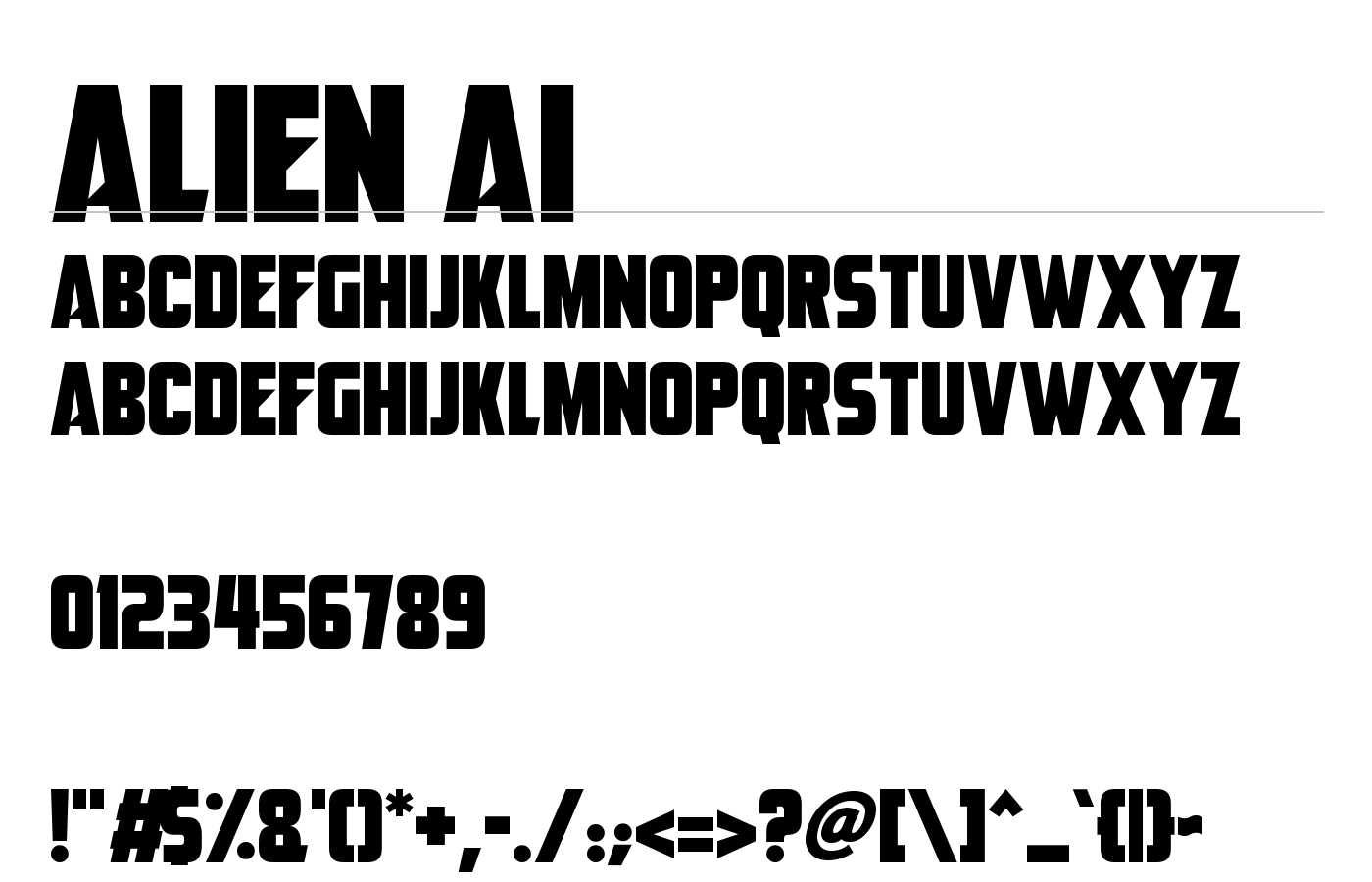
Alien AI is a bold, condensed sans serif font with a futuristic, tech-inspired style. Its sharp angles and strong geometric shapes give it a modern, edgy feel that works well for headlines, logos, and designs aiming for a sci-fi or high-tech vibe. This font’s striking presence makes it ideal for projects that need a bold and impactful look.
Alien AI Font
About Alien AI Font